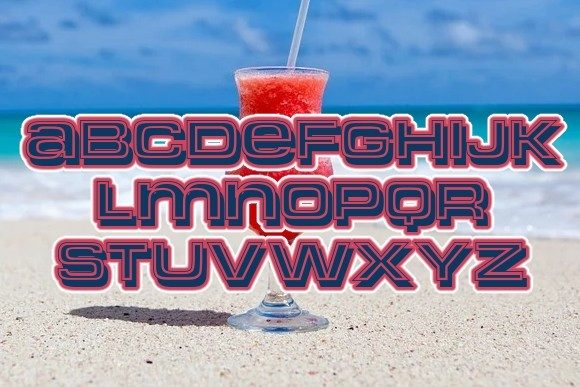
Introduction to Okuz Font
Have you ever been working on a creative project and suddenly, the perfect font pops into your mind? That’s exactly what happened to us when we discovered the Okuz Font. Its bold display style is an absolute game-changer for designers looking to elevate their work.
Key Features of Okuz Font
- High-quality design resource suitable for various creative projects, including logos, graphics, and typography.
- Comes with a transparent background, allowing for seamless integration with any design or image.
- High-resolution design, suitable for print and digital applications up to 300 DPI.
- Unique, modern design aesthetic that can add a touch of sophistication to any creative project.
Honest Review: Okuz Font
As a designer, I’m always on the lookout for high-quality design resources to elevate my creative projects. Recently, I stumbled upon the Okuz Font, and I must say it’s been a game-changer for my designs. The font is clean, modern, and incredibly versatile, making it perfect for a wide range of applications.
Limitations: ⚠️ While the Okuz Font is an excellent resource, it does have some limitations. The font family is relatively small, and it may not be suitable for projects that require a large number of font variations. Additionally, the font may not be as readable on smaller screens or in low-resolution images.
Overall impression: I’m thoroughly impressed with the Okuz Font, and I highly recommend it to designers who are looking for a high-quality, modern font for their creative projects. With its transparent background, free download, and high level of customizability, it’s an excellent addition to any designer’s toolkit.
- Perfect for modern and clean designs
- Transparent background for seamless designs
Okuz Font: A High-Quality Design Resource
Tips for Getting the Most Out of Okuz Font
For optimal results, use Okuz Font with a transparent background to create a seamless design. Experiment with different font sizes and colors to achieve the desired effect.
Okuz Font is perfect for creative projects, such as graphic design, branding, and digital art. Its high-quality design makes it an excellent choice for professional applications, including business presentations and marketing materials.